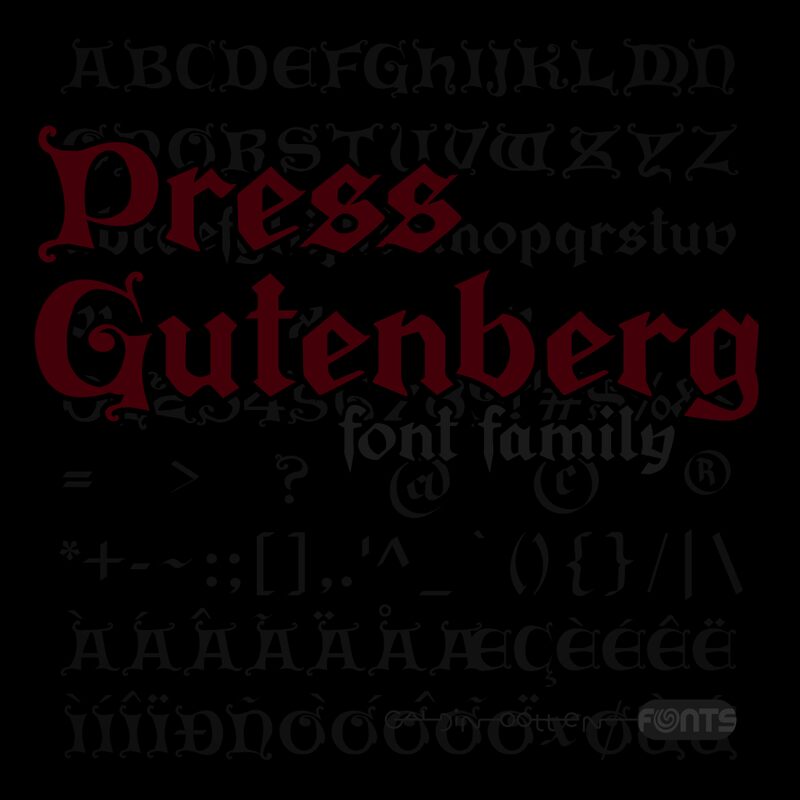
Press Gutenberg
Press Gutenberg font, crafted by Galdino Otten Fonts, is a modern gothic typeface with an ornamental design and historical influence. This font evokes a sense of antiquity and formality, reminiscent of medieval manuscripts and early printed books. Historically, it was used in Germanic texts from the Renaissance period and frequently featured in formal documents seeking a traditional aesthetic.
This free font is perfect for logos, branding on craft beer labels, wedding invitations with a vintage theme, or cultural event promotions where historical significance is crucial. Additionally, use it for posters, book covers, video game graphics, movie titles, album art designs, restaurant menus, or magazine headers to introduce Gothic ambience and style.